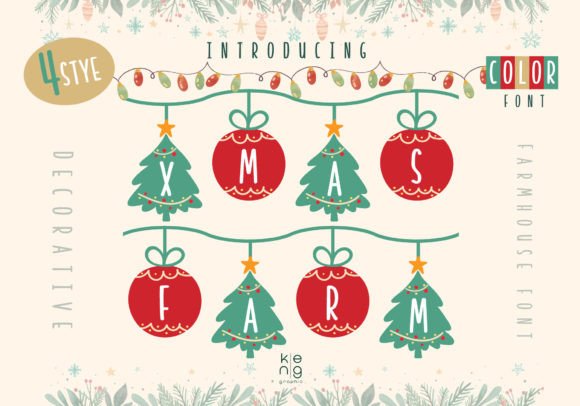
Step into a whimsical world of charm and playfulness with Xmas Farm Font, the enchanting color font that brings life to your designs. Crafted by the creative minds at keng graphic, this captivating font family is a visual delight that will make your words dance with joy.
With its bold and vibrant characters, Xmas Farm Font is the epitome of cheerfulness and vibrancy. Each letter is a burst of color, ready to add a touch of magic to your projects. Whether you're creating eye-catching social media posts, designing playful posters, or crafting heartwarming greeting cards, this font will transform your words into works of art.
The possibilities are endless with Xmas Farm Font. Its playful nature makes it perfect for adding a touch of whimsy to your designs. Create eye-catching logos that exude a sense of fun and excitement. Design posters that pop with infectious energy. Make your social media posts stand out with a unique and memorable font that will leave a lasting impression.
But Xmas Farm Font is more than just a pretty face. It's also incredibly versatile, adapting effortlessly to a wide range of design styles. Whether you're working on a retro-inspired project or a modern, minimalist design, this font seamlessly blends in, adding a touch of charm and personality.